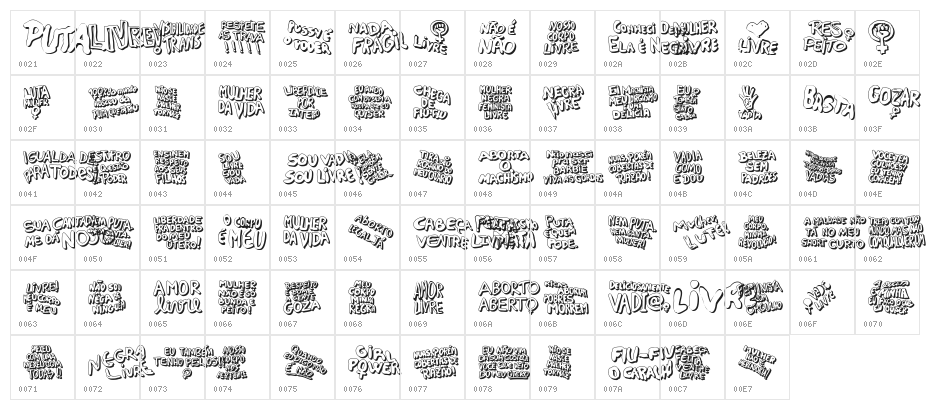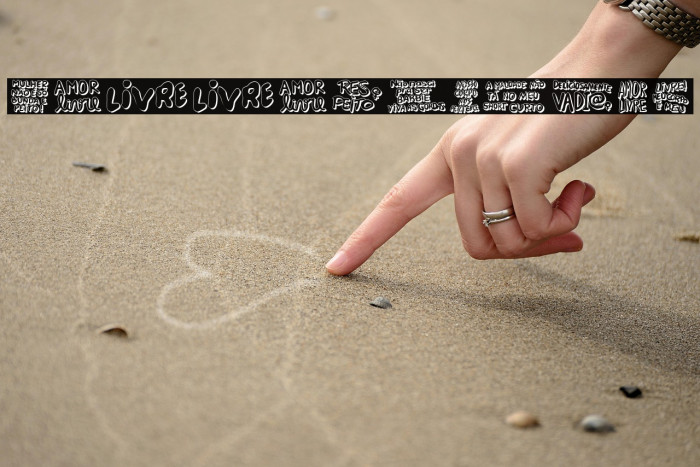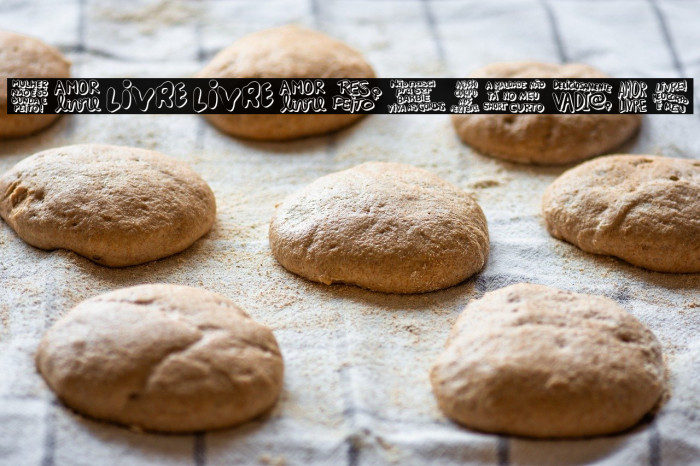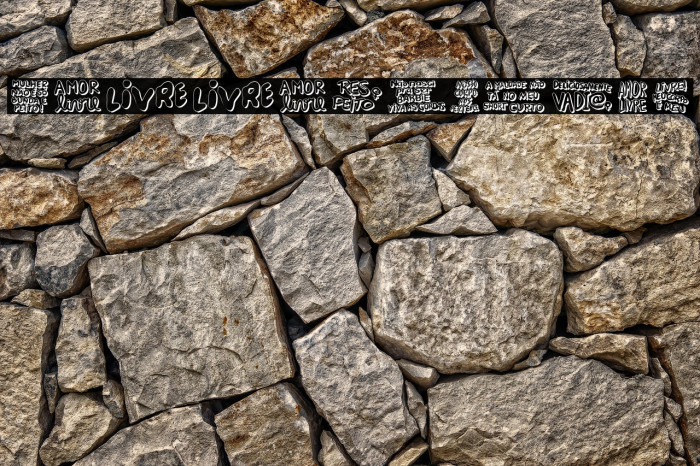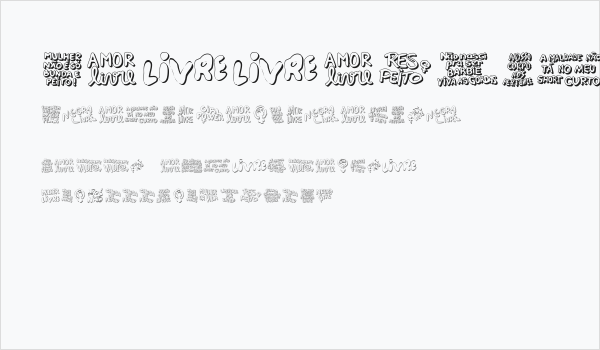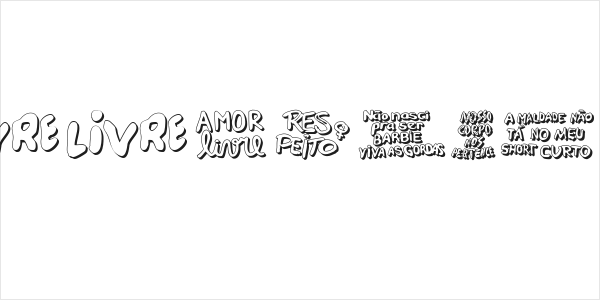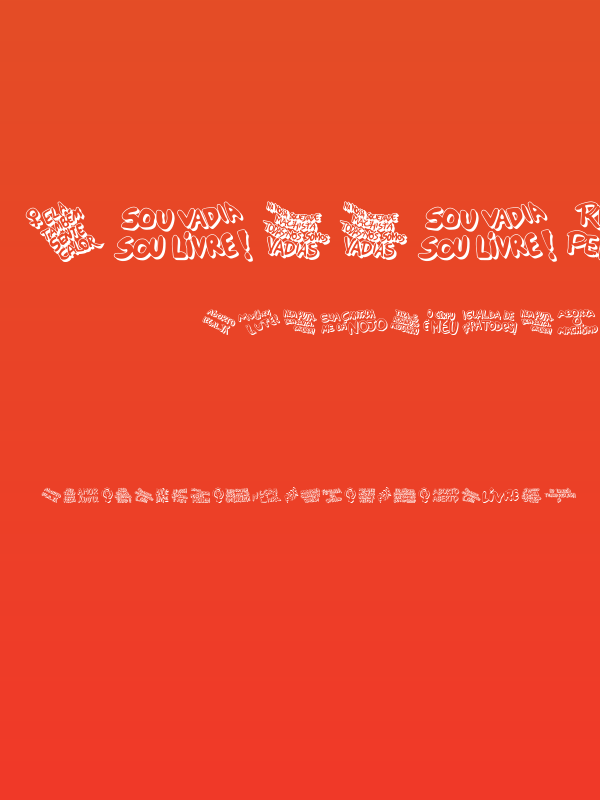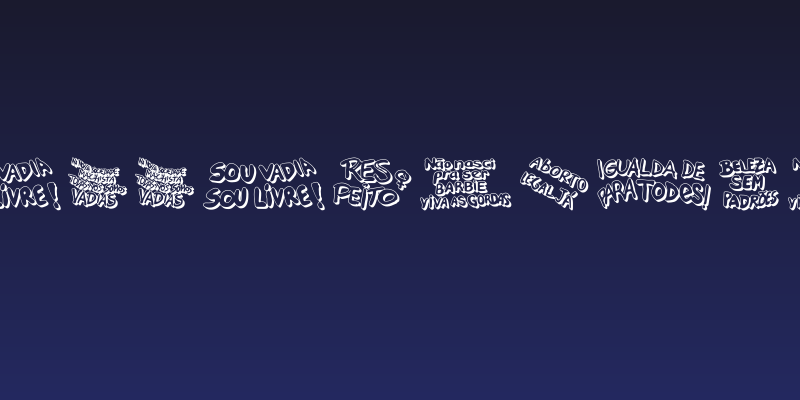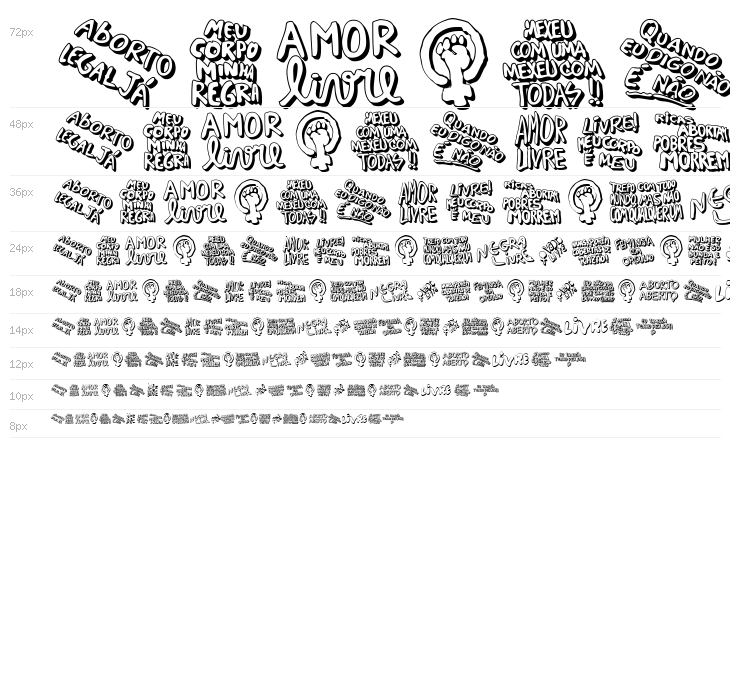
femme-Italic Font
femme-Italic Description
This font features a bold and expressive style with a hand-drawn appearance. The characters are irregular and playful, giving a sense of movement and energy. The strokes are thick and uneven, adding to the casual and informal feel. This font is highly decorative, with each letter having a unique shape that contributes to its lively and dynamic look. It is ideal for projects that require a fun and engaging visual impact, such as posters, event flyers, or creative branding. The font's whimsical nature makes it suitable for conveying messages with a personal touch.
| Proposed Projects | Ideal for posters, event flyers, creative branding, and any project needing a lively, personal touch. |